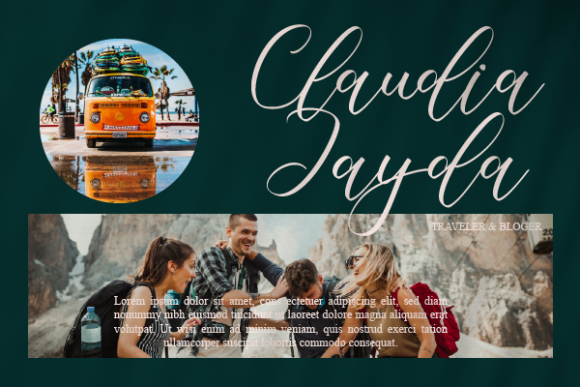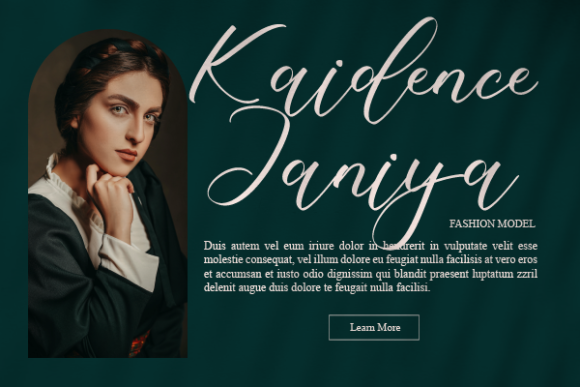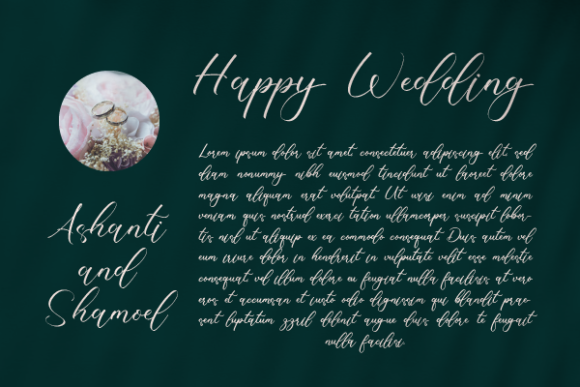
Introduction to Natalia Yadira Font
Have you ever stumbled upon a design project that sparks your creativity, only to struggle with finding the perfect font to bring it to life? As designers, we’ve all been there – searching for that elusive combination of elegance and character to elevate our work. But what if I told you that I’ve discovered a hidden gem that’s about to become your new go-to design resource?
Meet the Natalia Yadira Font, a stunning, high-quality handwritten font that’s perfect for adding a touch of sophistication to your creative projects. With its delicate, flowing characters and well-balanced design, this font is sure to make your ideas shine. And the best part? It’s available for free download, making it a valuable addition to any designer’s toolkit.
Whether you’re working on a branding project, a wedding invitation, or a social media campaign, the Natalia Yadira Font is the perfect choice. Its transparent background and versatile design make it a great match for a wide range of creative projects. So why settle for an ordinary font when you can have an extraordinary one?
Key Features of Natalia Yadira Font
- High-quality design for creative projects, ideal for those seeking a unique aesthetic.
- Features a unique, hand-drawn style that adds a touch of personality to any creative project.
Honest Review: Natalia Yadira Font
I recently had the chance to work with the Natalia Yadira Font and I must say, it’s been a delight to incorporate it into my creative project. This free download has proven to be a fantastic design resource, offering a high quality and unique style that’s hard to find.
One of the standout features of this font is its transparent background, making it easy to overlay on any image or design without any visual clutter. I’ve used it for a variety of projects, from social media graphics to branding materials, and it’s consistently delivered great results.
- High quality design that’s perfect for creative projects
- Transparent background for easy overlay
- Limited character set, may not be suitable for extensive text-based projects
- Not as versatile as some other fonts, may not work well in certain contexts
Overall, I’m impressed with the Natalia Yadira Font and would definitely recommend it to designers looking for a unique and high-quality design resource. Just be aware of its limitations and use it in contexts where it will shine.
Tips for Getting the Most Out of Natalia Yadira Font
Use a transparent background to create a more subtle design. Experiment with different font sizes and styles to create visual interest. Combine Natalia Yadira Font with other design elements to create a unique and eye-catching design.
Natalia Yadira Font is perfect for creative projects such as wedding invitations, business cards, and social media graphics. Its high quality and elegant design make it a popular choice among designers.